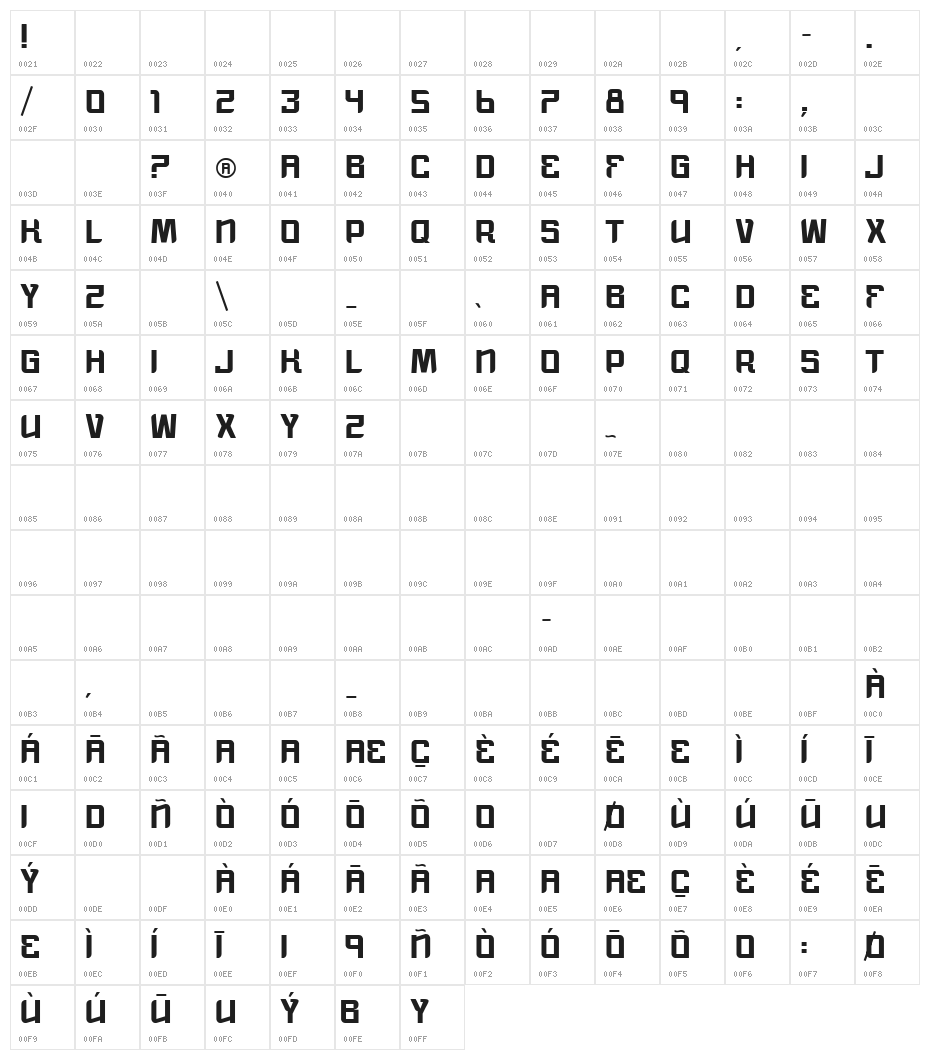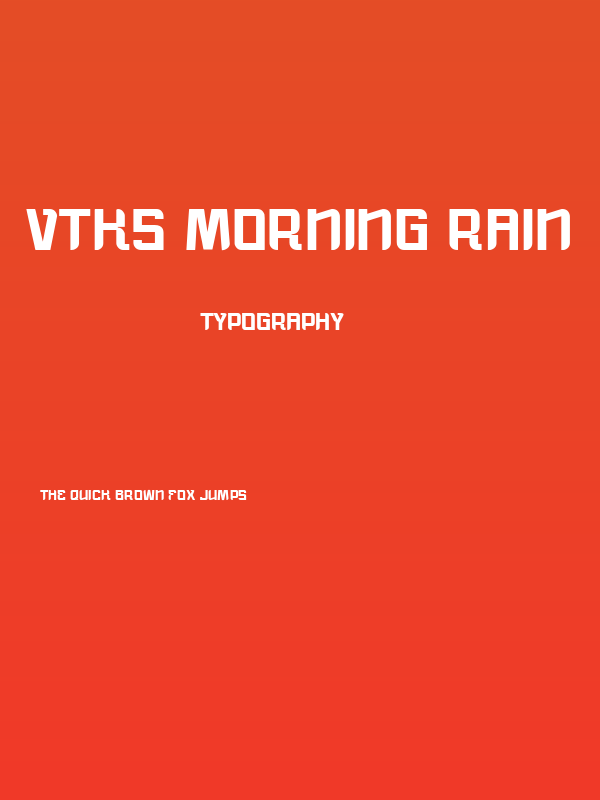
vtks morning rain Font
vtks morning rain Description
This font features a bold and geometric design with a modern twist. The characters are constructed with sharp angles and straight lines, giving it a futuristic and industrial feel. The uppercase and lowercase letters maintain a consistent height, while the numerals and special characters complement the overall aesthetic. The font's unique style is characterized by its blocky appearance and minimalistic details, making it suitable for eye-catching designs. The spacing between characters is tight, enhancing its compact and cohesive look.
Proposed ProjectsIdeal for branding, posters, headlines, and digital artwork that require a strong and modern visual impact.